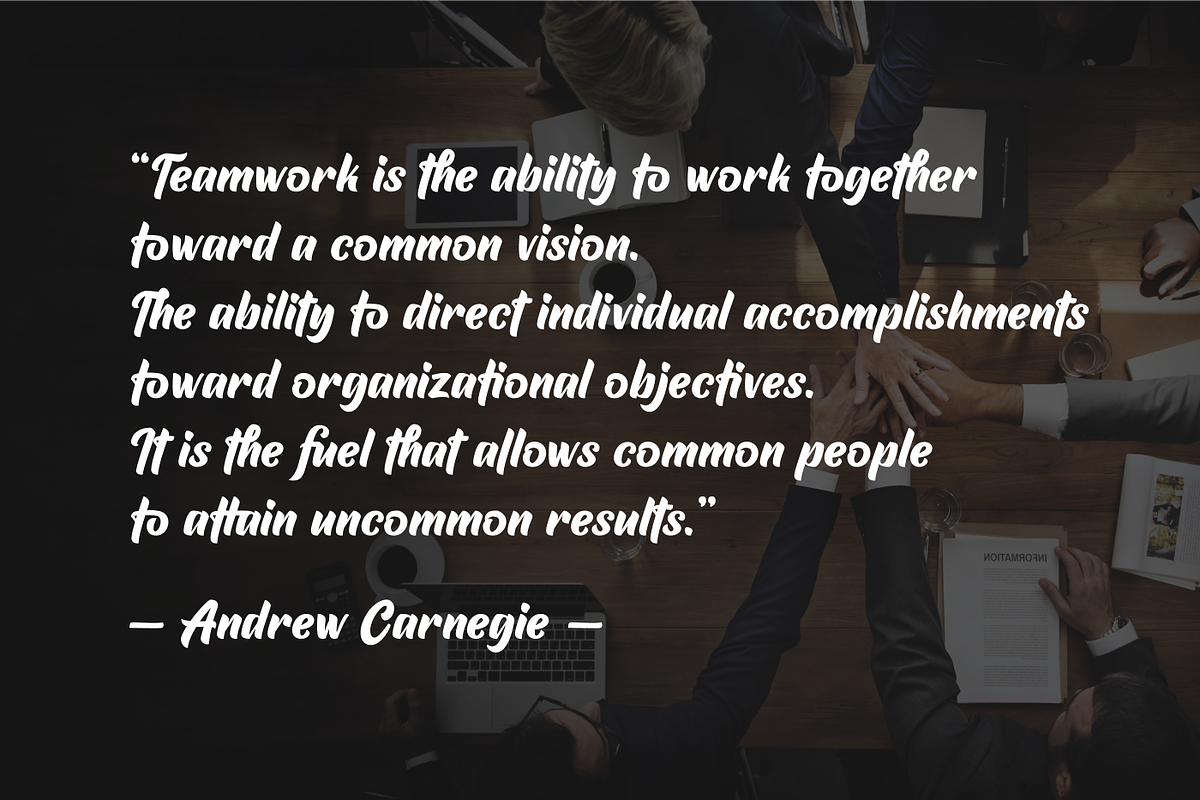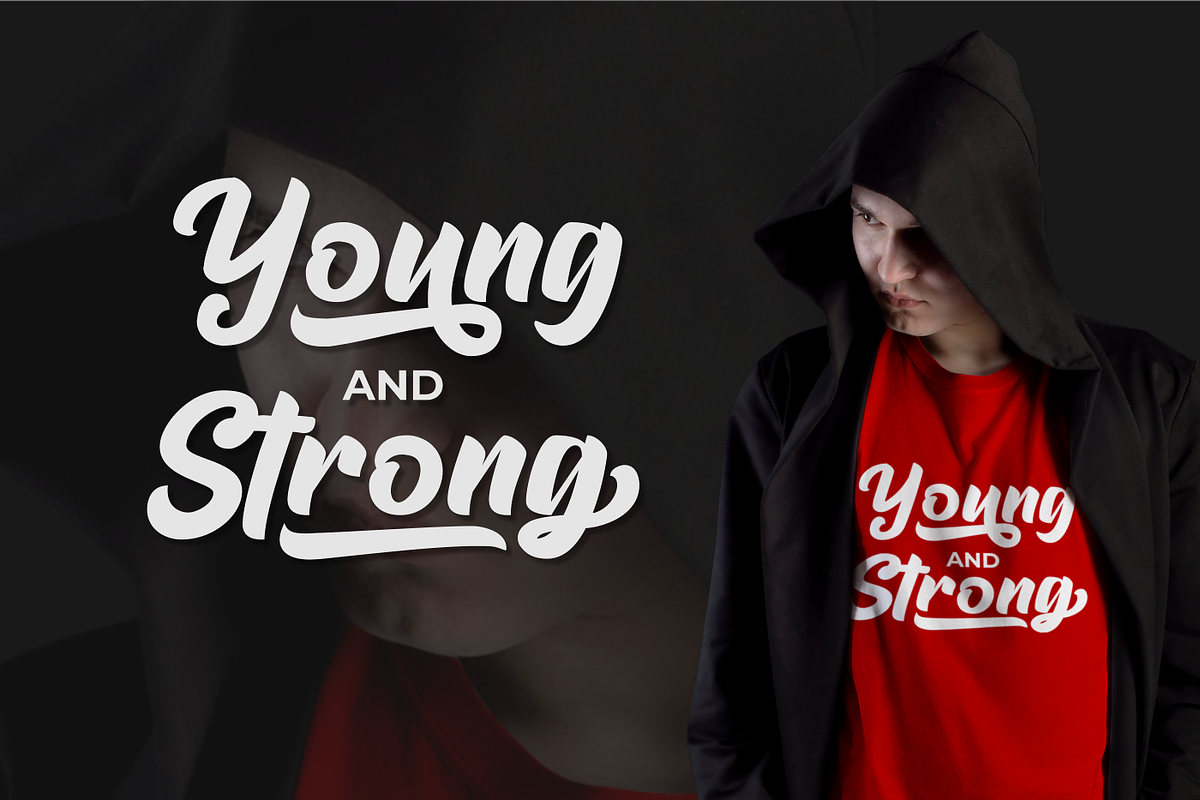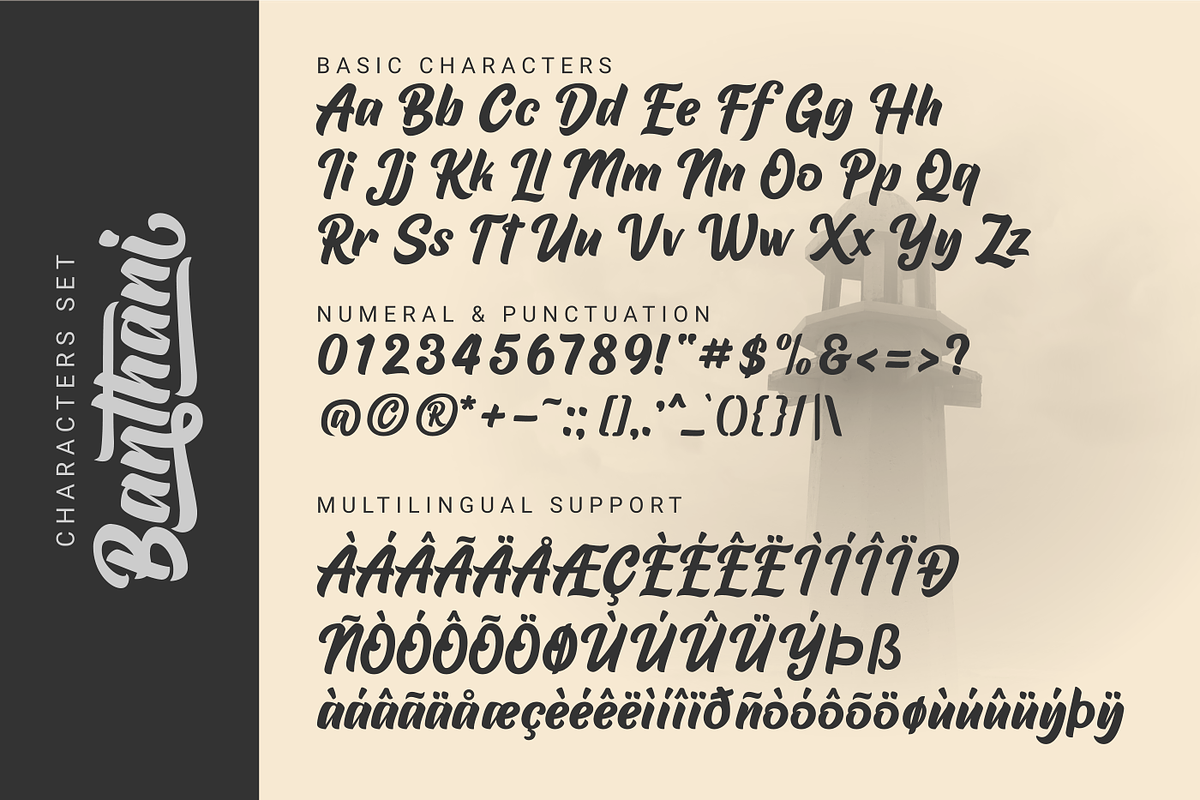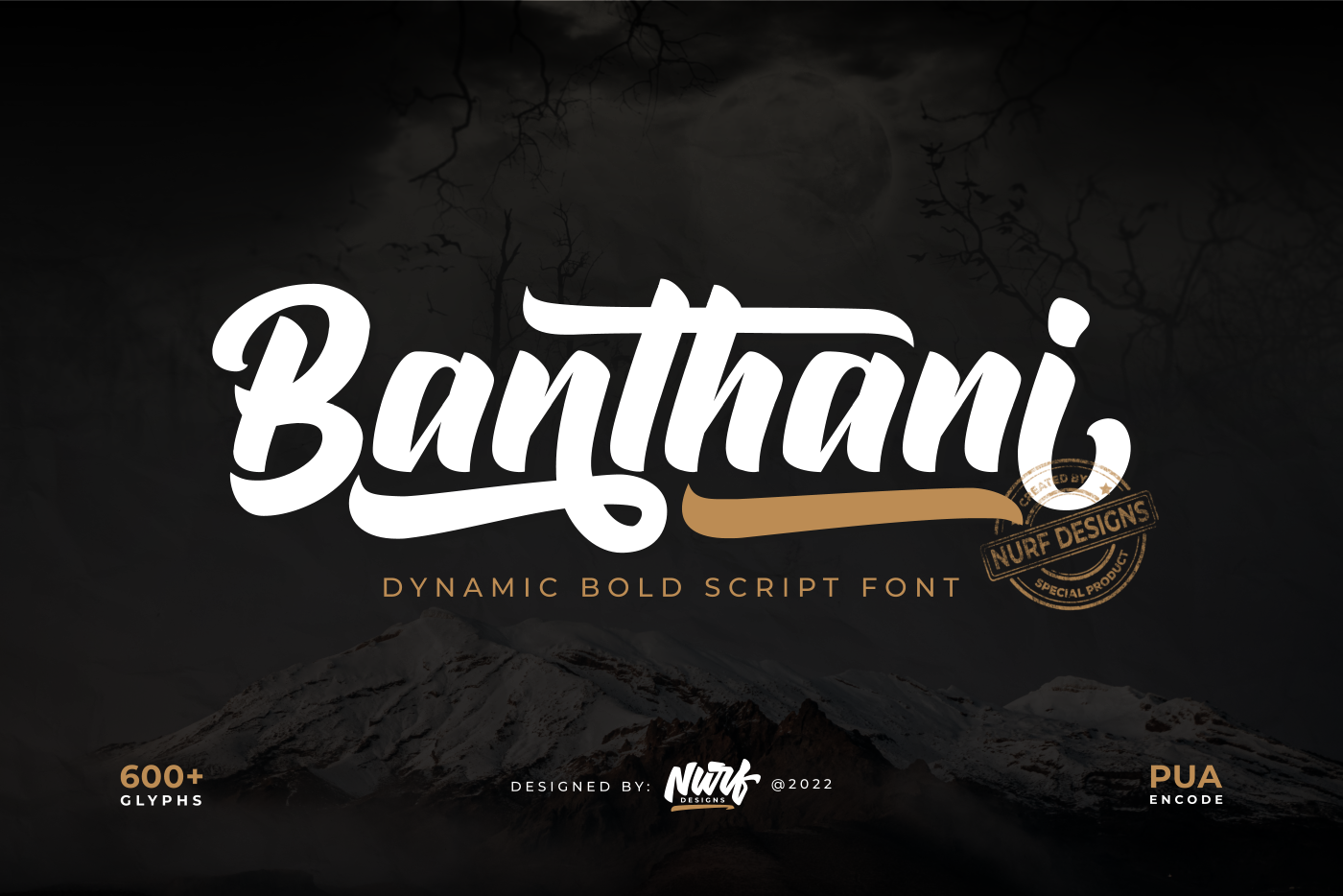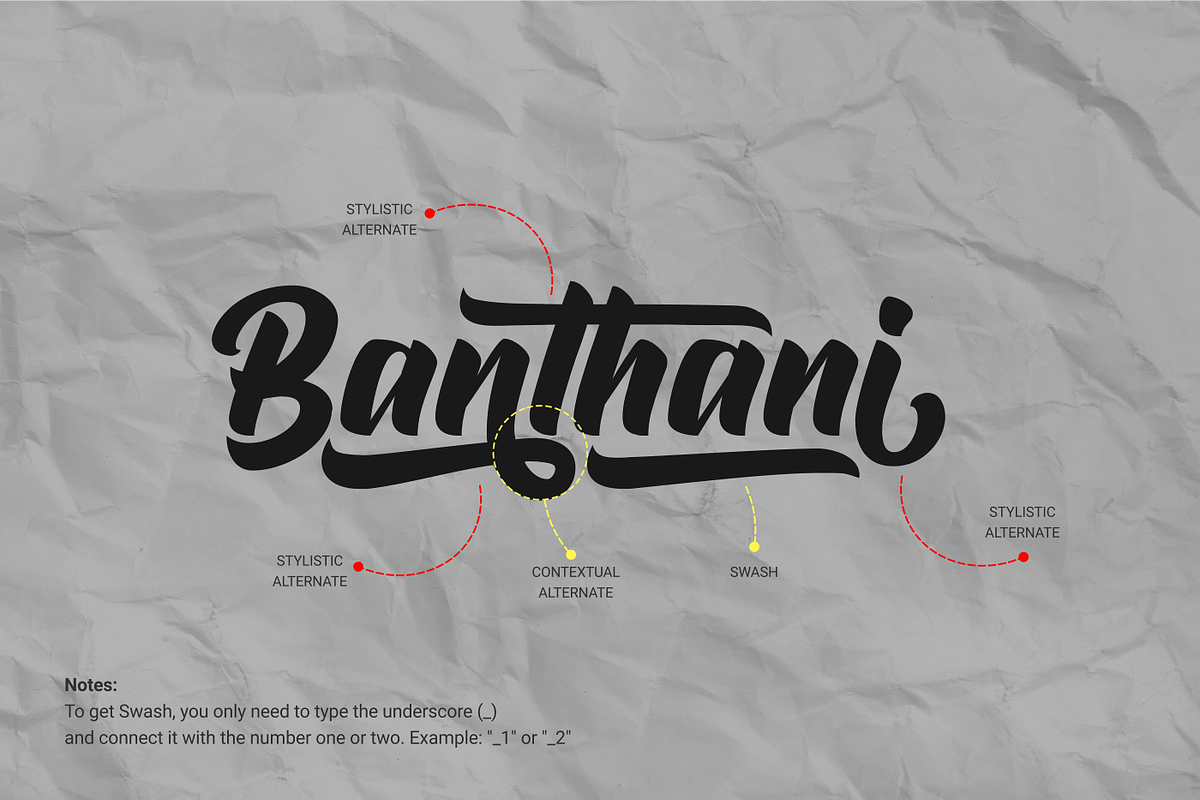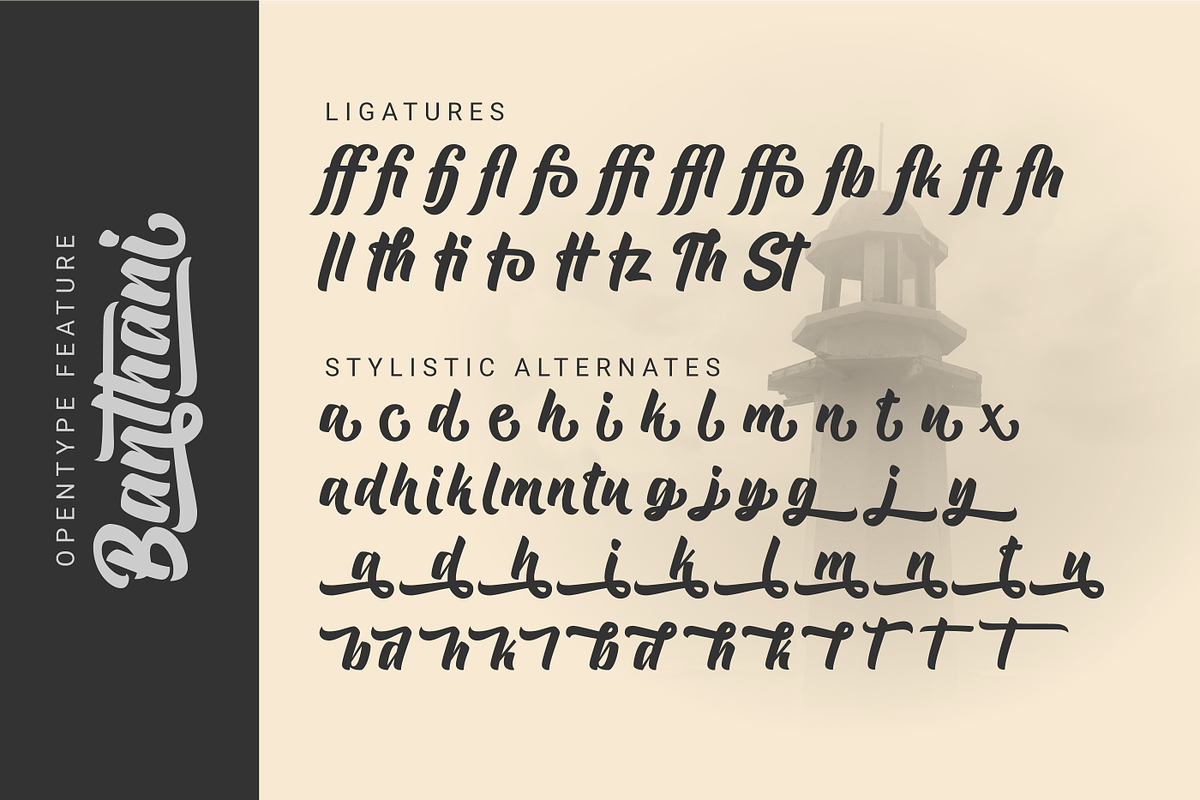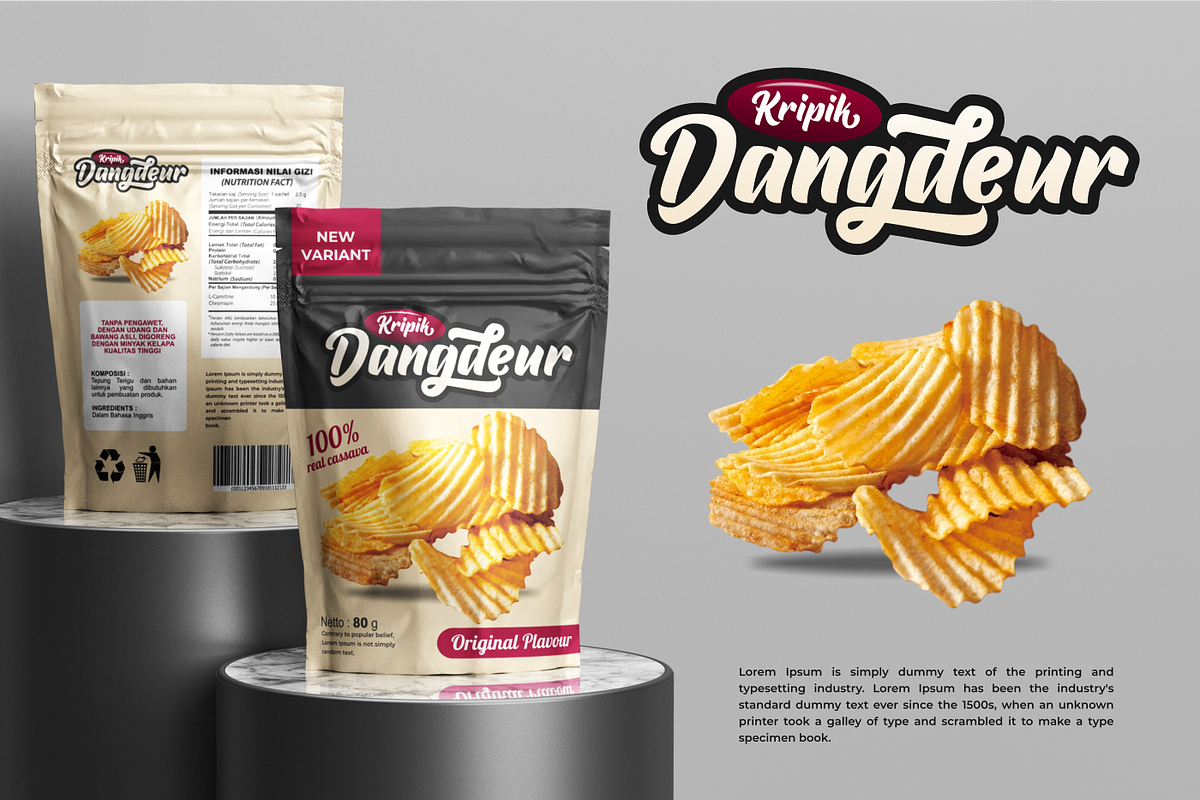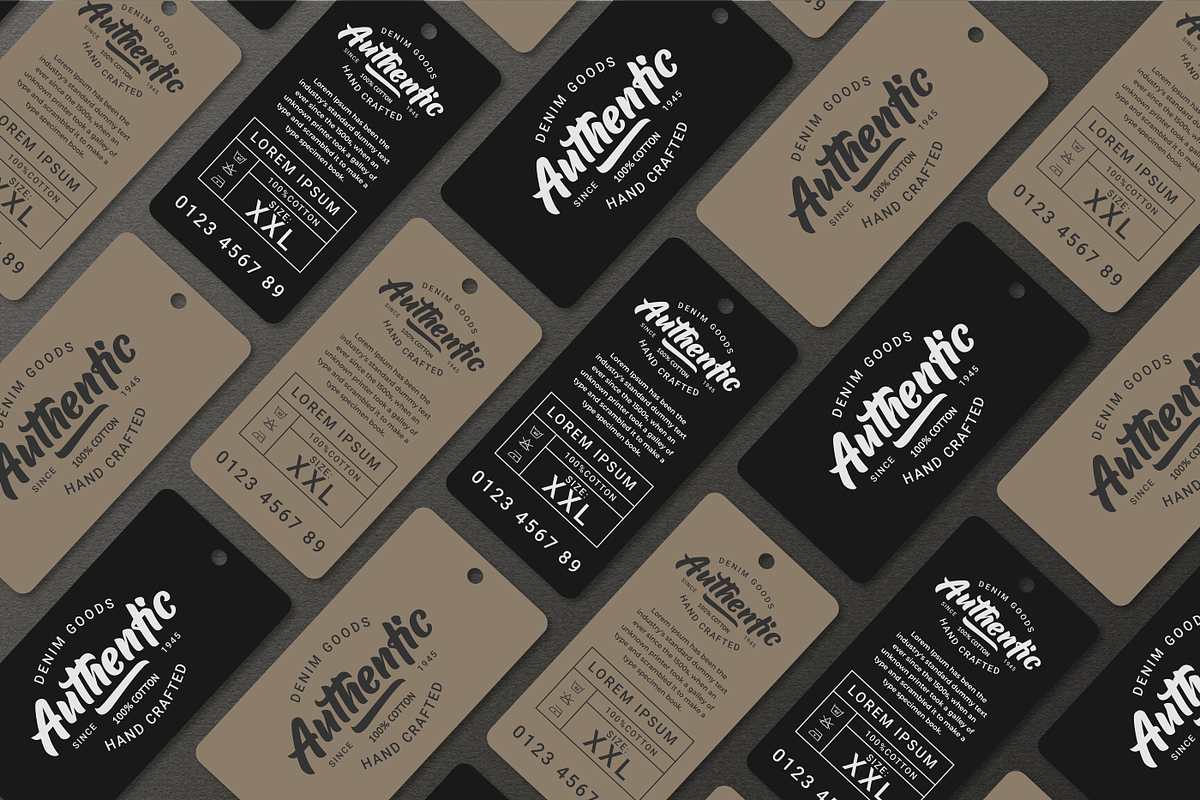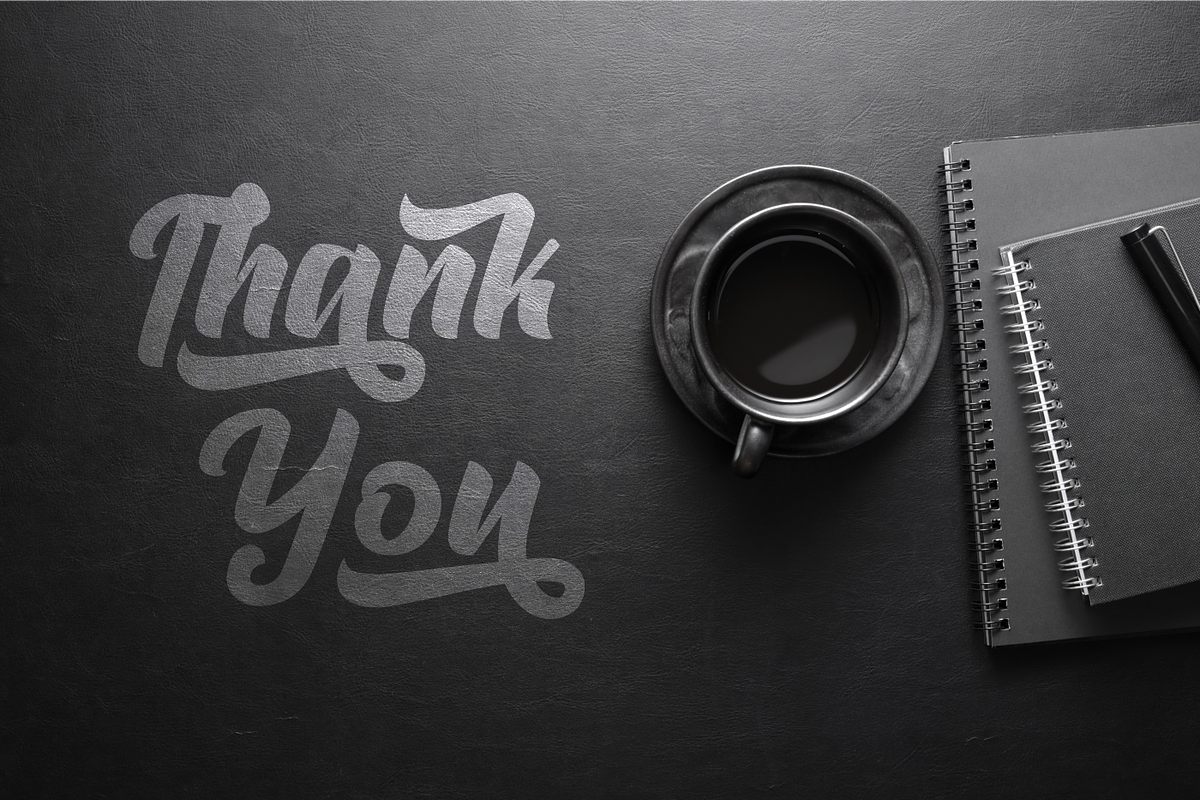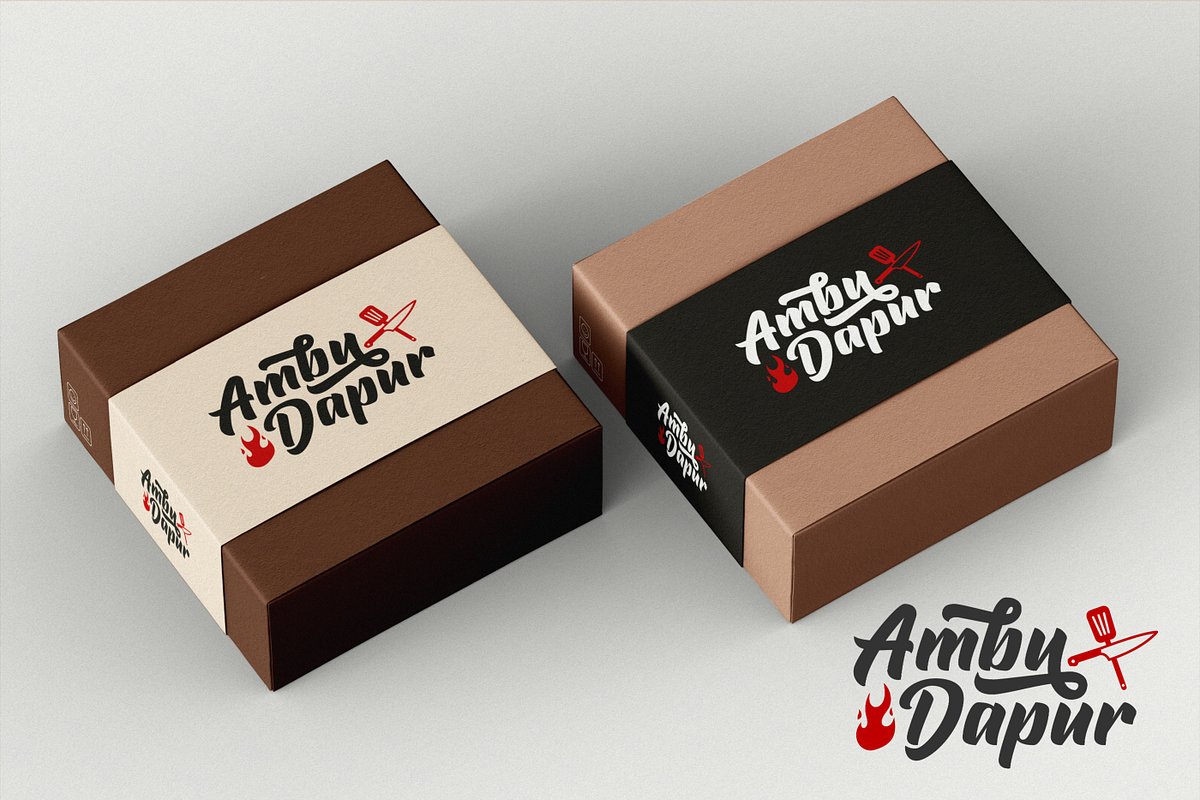
Bantani – Dynamic Bold Script Font
Banthani is a dynamic bold script font. Inspired by its predecessor Raphtalia, it comes with a bold script style and is equipped with Opentype Features (Stylistic Alternate, Contextual Alternate, Ligature, etc.).
You can get a different character in almost every glyph, you can choose it according to your design needs. We designed some characters to change “DYNAMICALLY” when they meet other characters, in order to create readability and harmony in each appearance.
Banthani is very suitable for the needs of Logotype, Branding, Header and designs that require distinctive features.